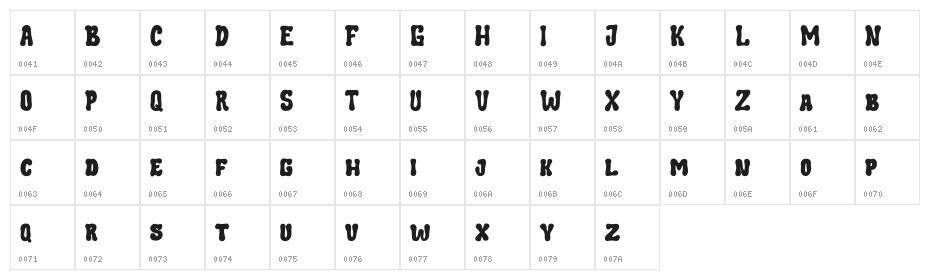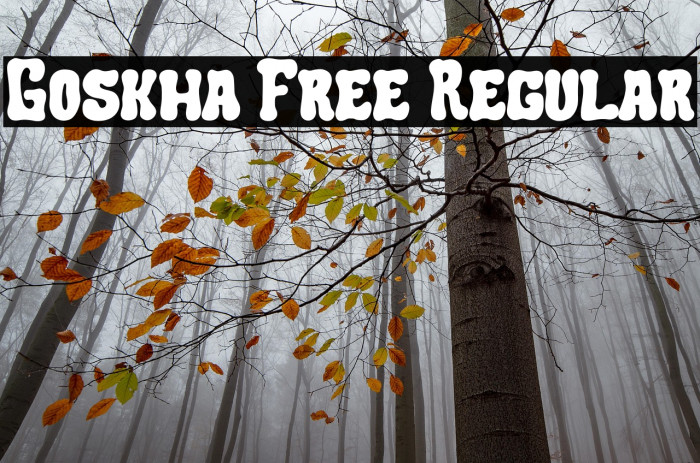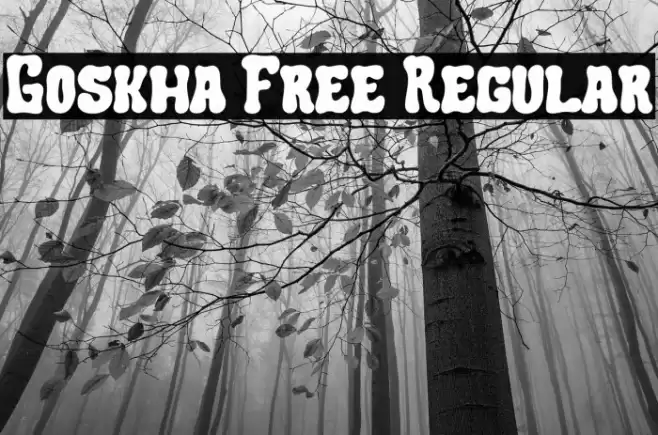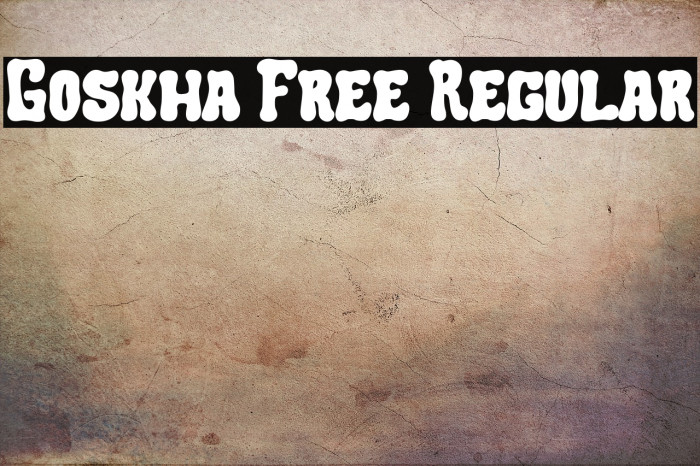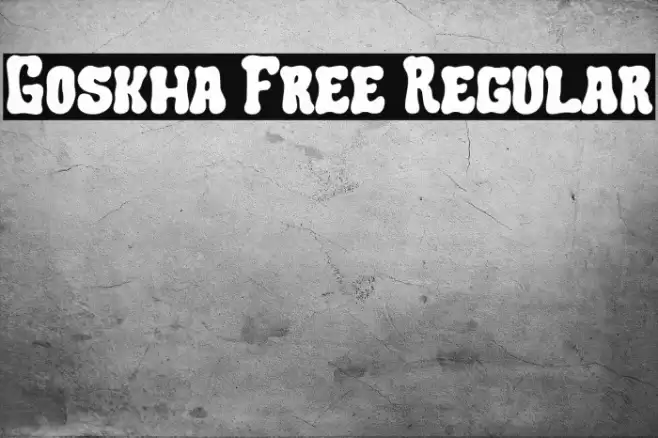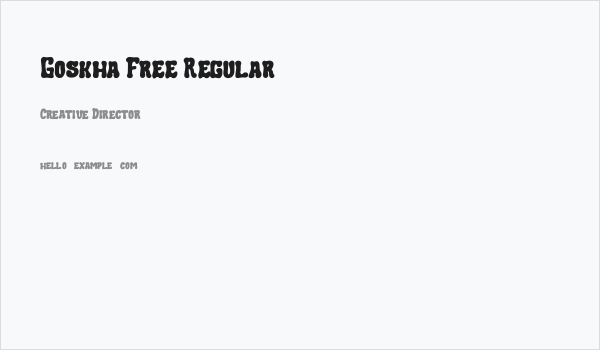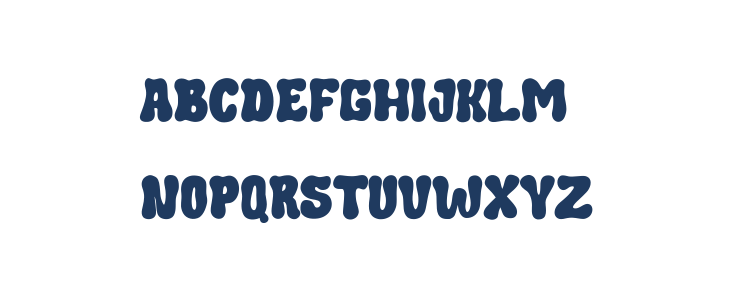
Goskha Free Regular Font
Goskha Free Regular Description
This font features a bold and playful design with rounded, bubbly characters that exude a sense of fun and creativity. The letters are thick and have a consistent weight throughout, giving them a strong presence on the page. The style is reminiscent of retro or vintage designs, making it ideal for projects that aim to capture a nostalgic or whimsical feel. The characters are closely spaced, adding to the compact and cohesive look of the text. This font is particularly suitable for headlines, posters, or any design that requires a bold and eye-catching typeface.
| Proposed Projects | Perfect for posters, children's books, playful branding, and retro-themed designs. |